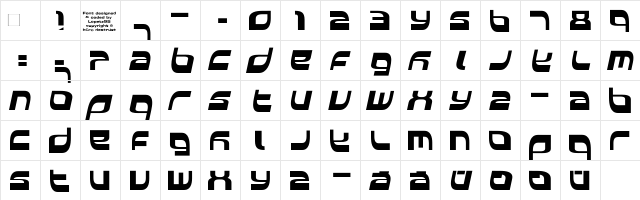
Complete Elside capsitalic glyph index. Displaying only characters natively supported by Elside capsitalic font.
Elside is a composed and adaptable typeface that performs quietly and consistently across a wide range of design contexts. The slanted form adds forward momentum and visual energy.
Pro Tip: Use Elside for emphasis, pull quotes, and subheadings where its slanted energy can add rhythm to the layout.